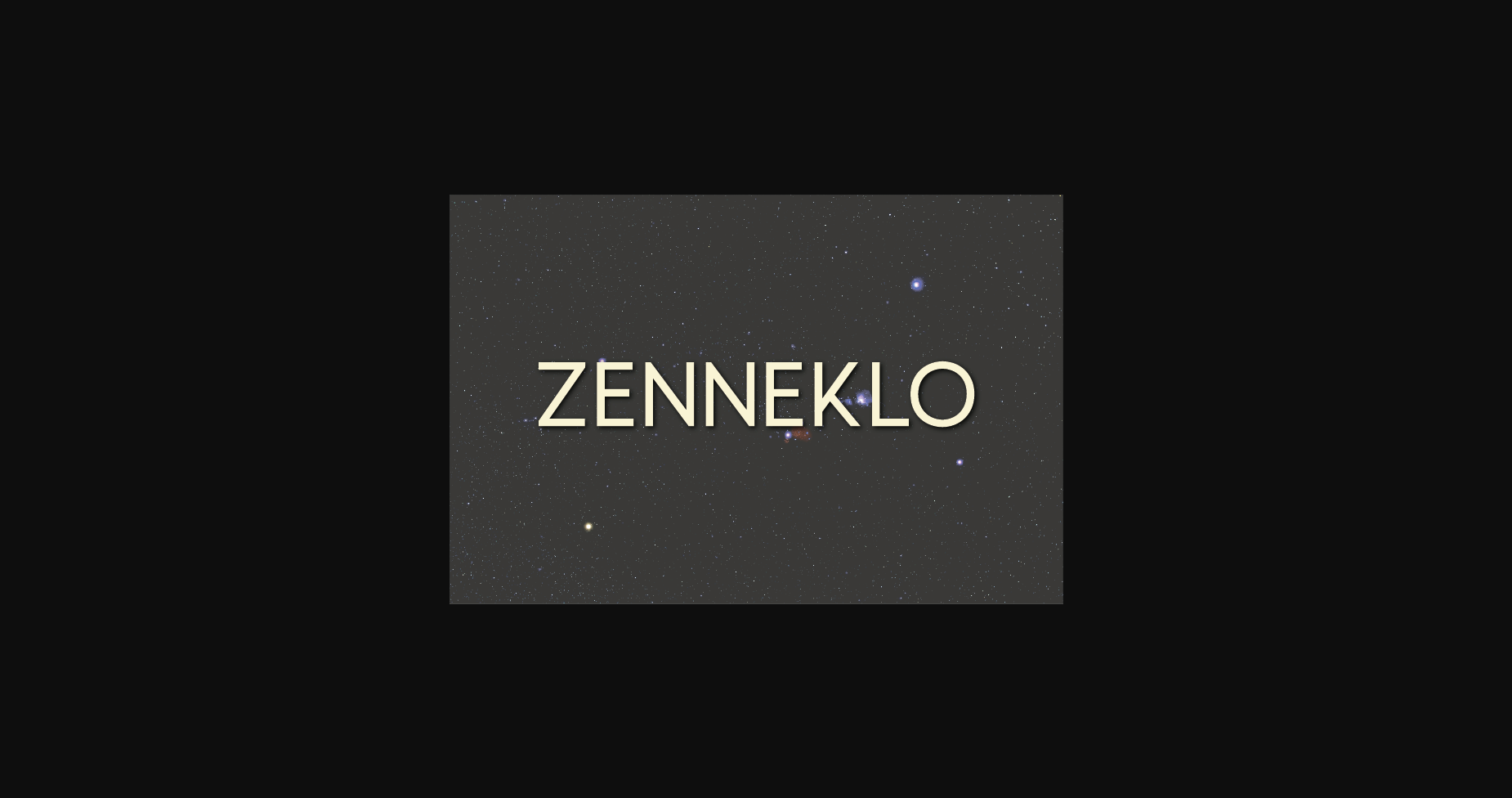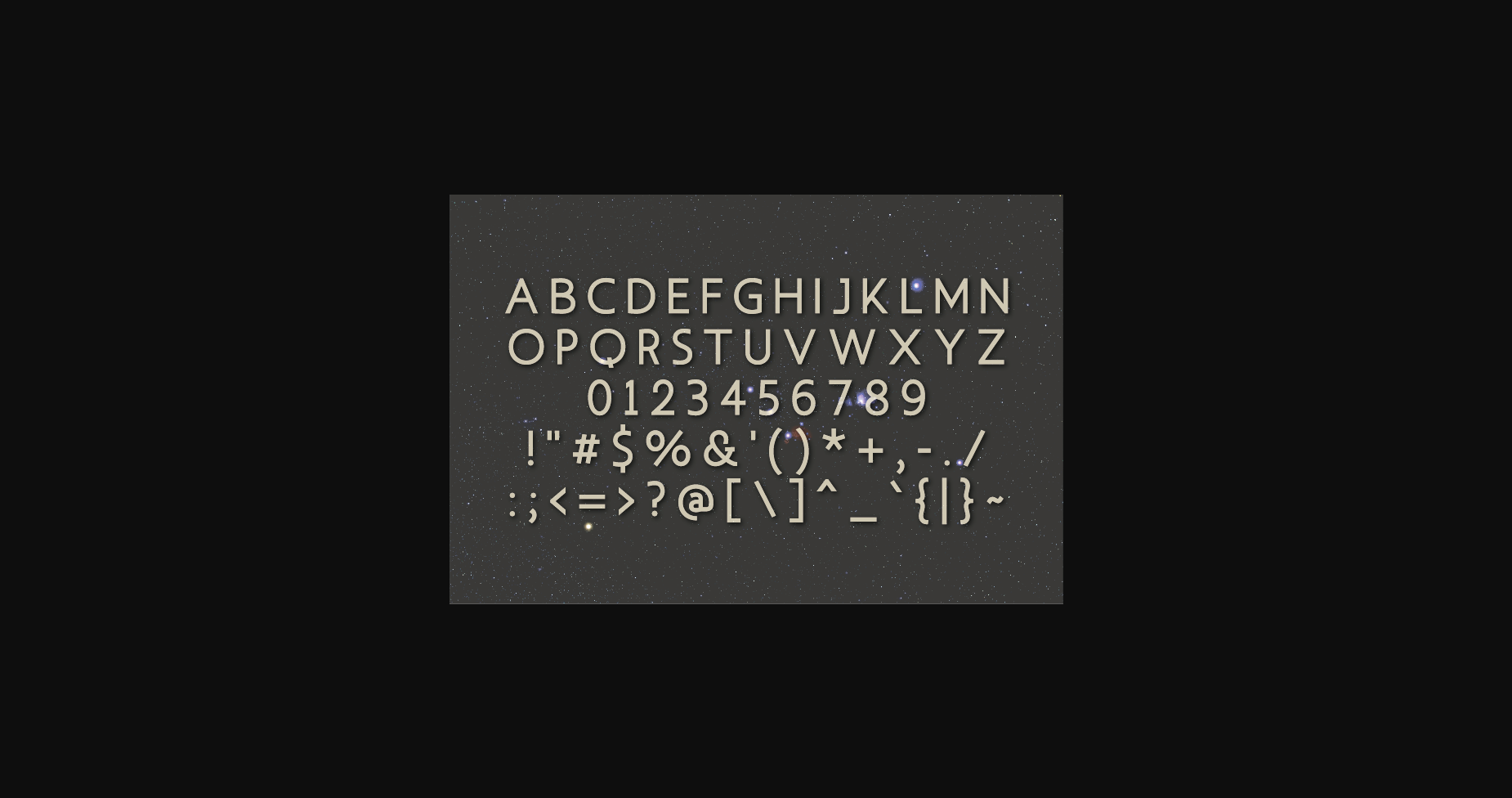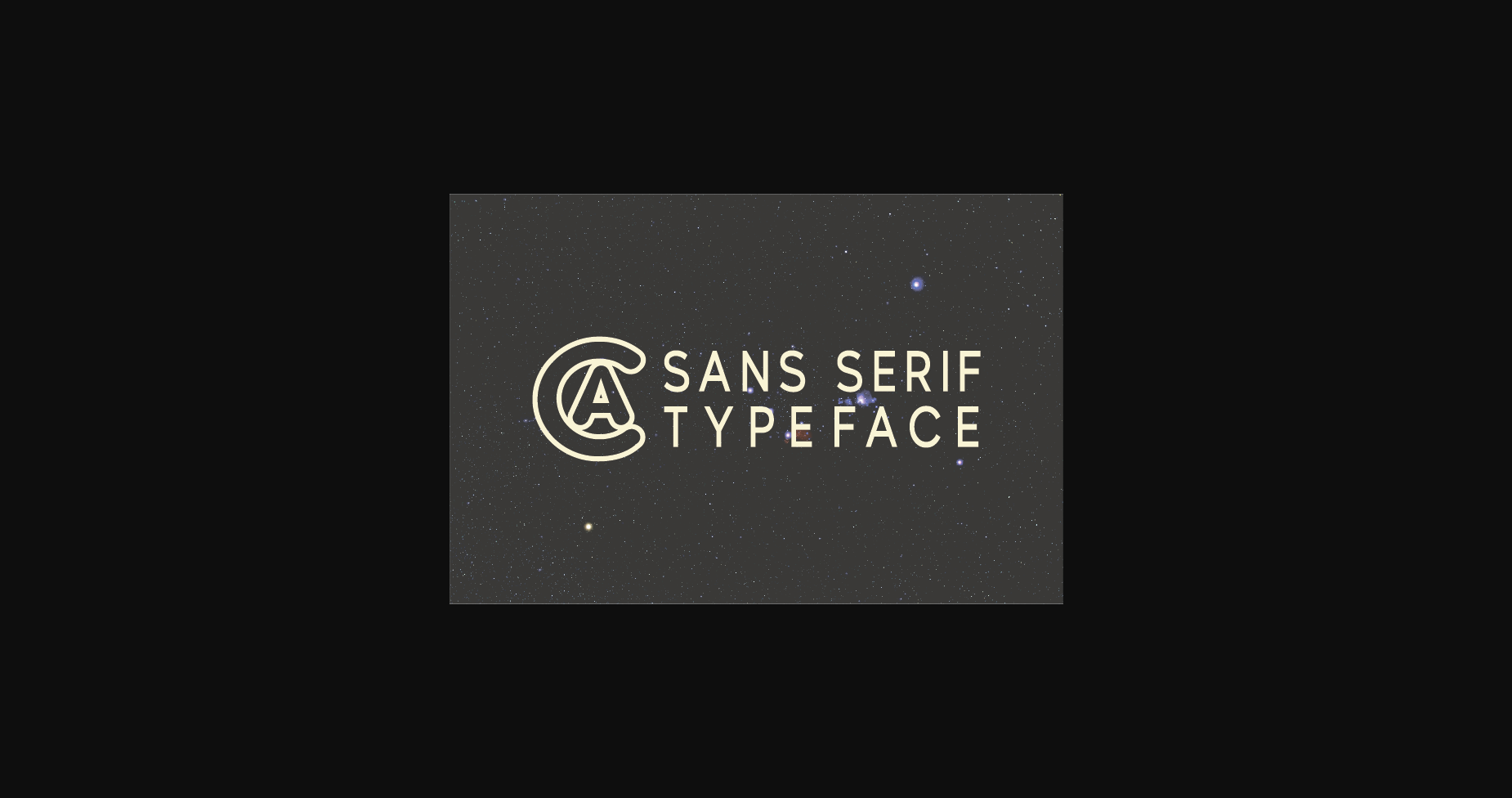
HomeSans Serif FontsZenneklo Font Sans Serif Fonts Zenneklo Font FacebookXPinterestWhatsApp 1 of 5 ... Zenneklo Font Poster 2... Zenneklo Font Poster 3... Zenneklo Font Poster 4... Zenneklo Font Poster 5... About Zenneklo Font Zenneklo is a minimal and neat sans serif font. It can easily be matched to an incredibly large set of projects, so add it to your creative ideas and notice how it makes them stand out! DOWNLOAD NOW People also explored Emily Bonza Font Estela Font Nadya Font Bright Sunshine Font School Reunion Font YWFT Clairemy Toastie Font Morning Rainly Font Meows Font 325 0 TagsZenneklo Font Previous articleQelista FontNext articleFrenchio Font LEAVE A REPLY Cancel reply Comment: Please enter your comment! Name:* Please enter your name here Email:* You have entered an incorrect email address! Please enter your email address here Website: Save my name, email, and website in this browser for the next time I comment. Personal Use Free Triangular Curves Personal Use Free Read more about this font Ciggs Personal Use Free Read more about this font Love Heart Personal Use Free Read more about this font Qiwqiw Personal Use Free Read more about this font BLOG 5 Fonts That Will Dominate Design Trends in 2026 5 Fonts for 2026 That Will Dominate Design Trends Typography plays a critical role in visual communication, and as we look ahead to 2026, it’s... Free vs Paid Fonts: Why Investing in Premium Fonts Is Worth It Where to Buy American Fonts Online in 2024 Best Fonts for YouTube Videos: Make Your Thumbnails Stand Out